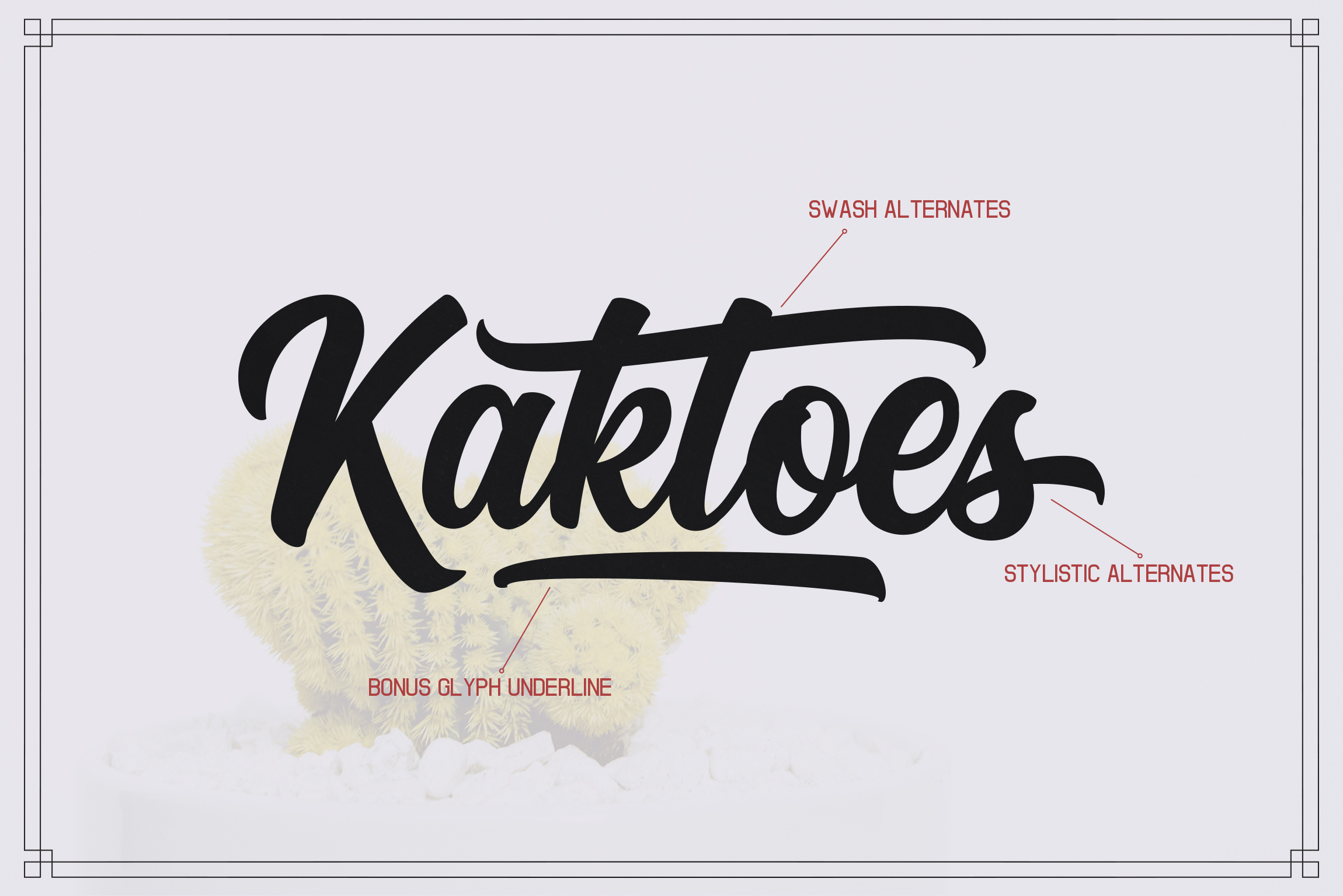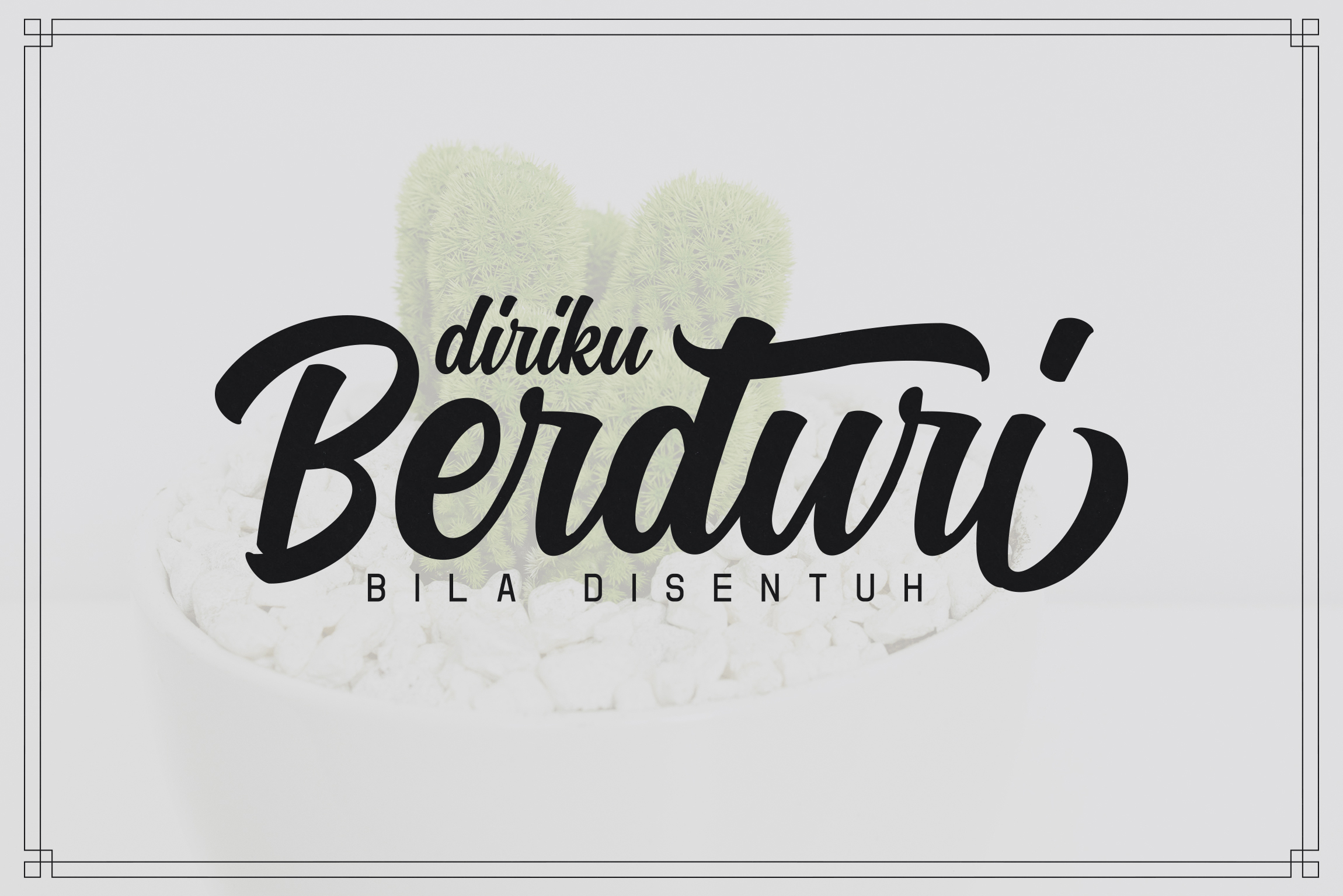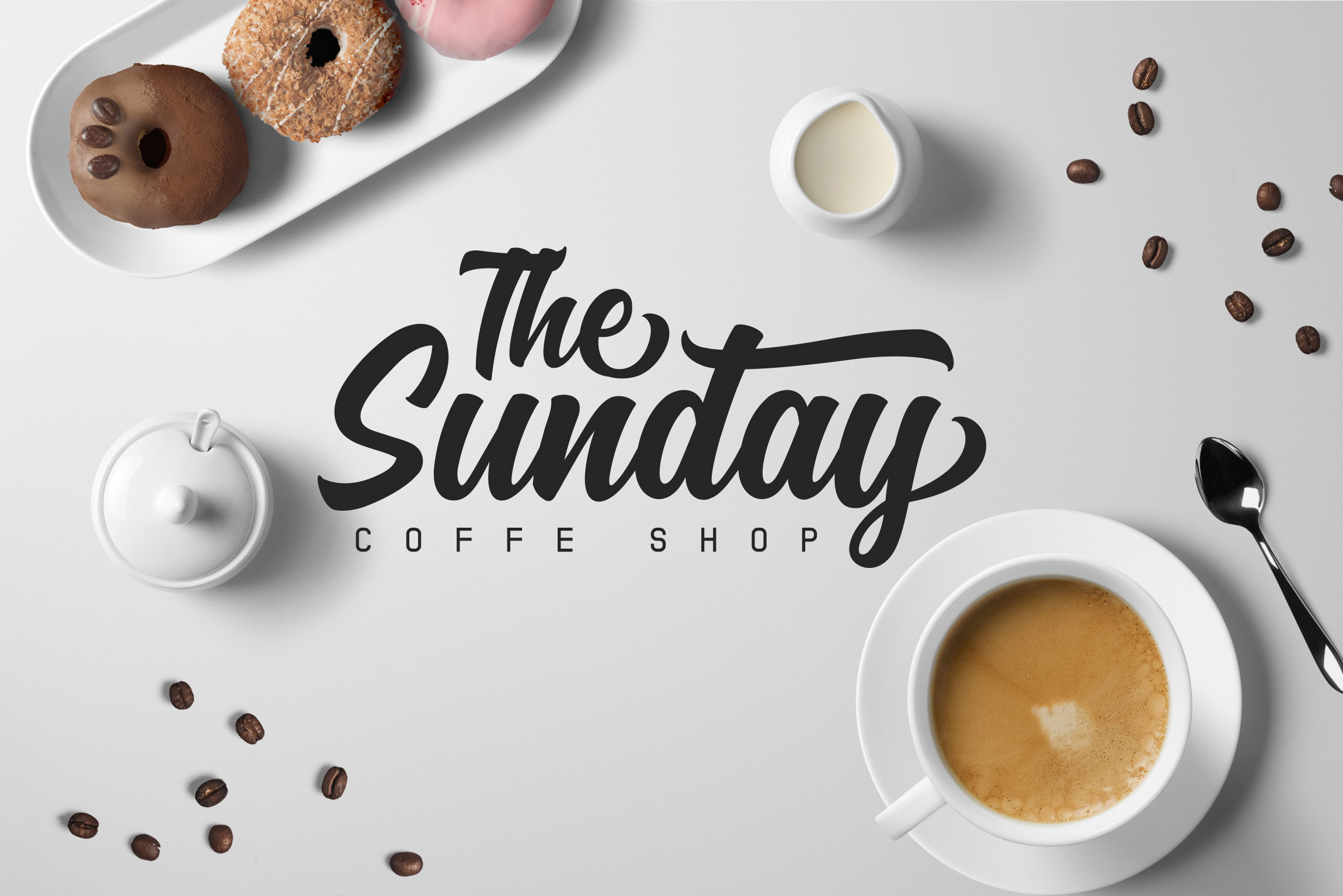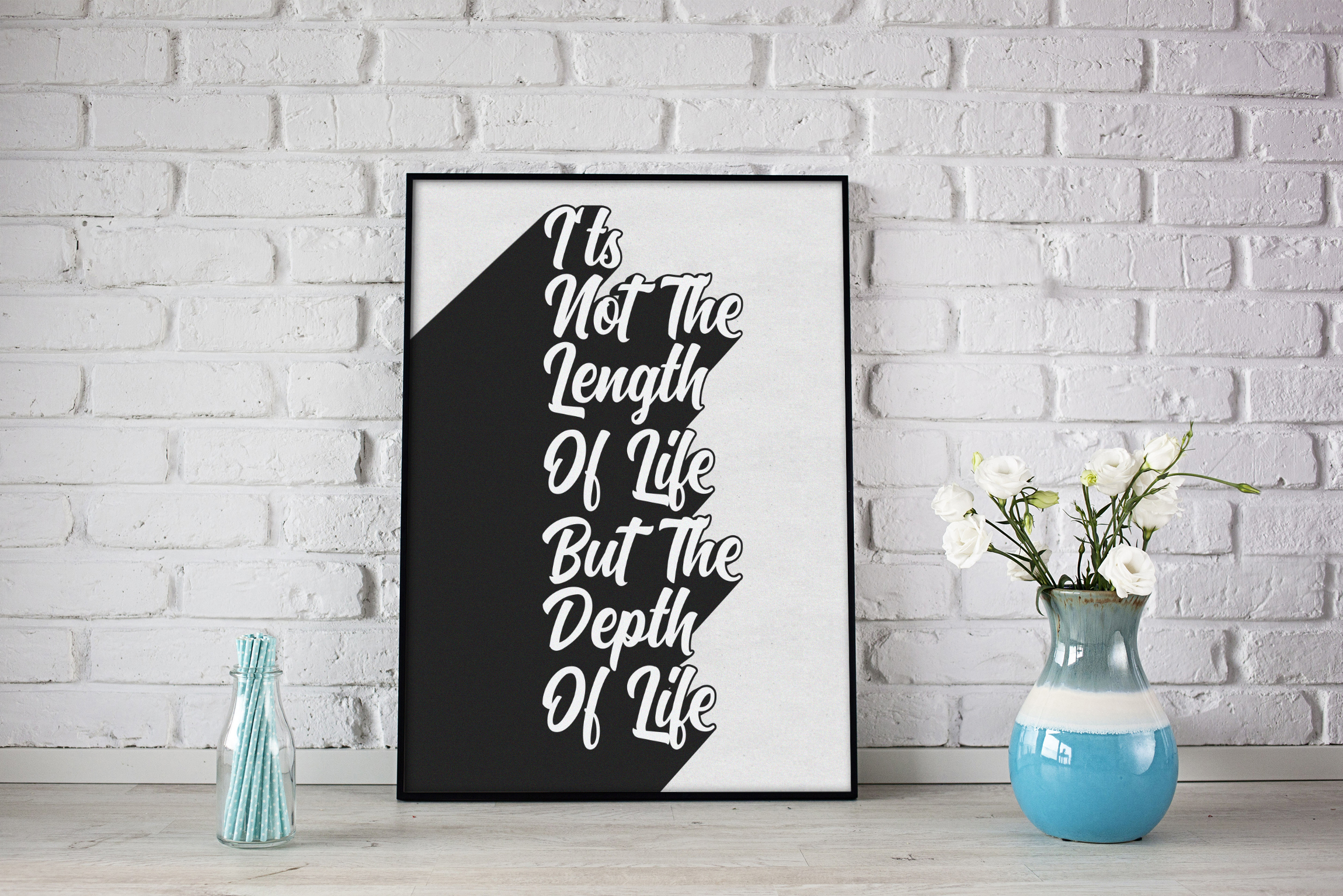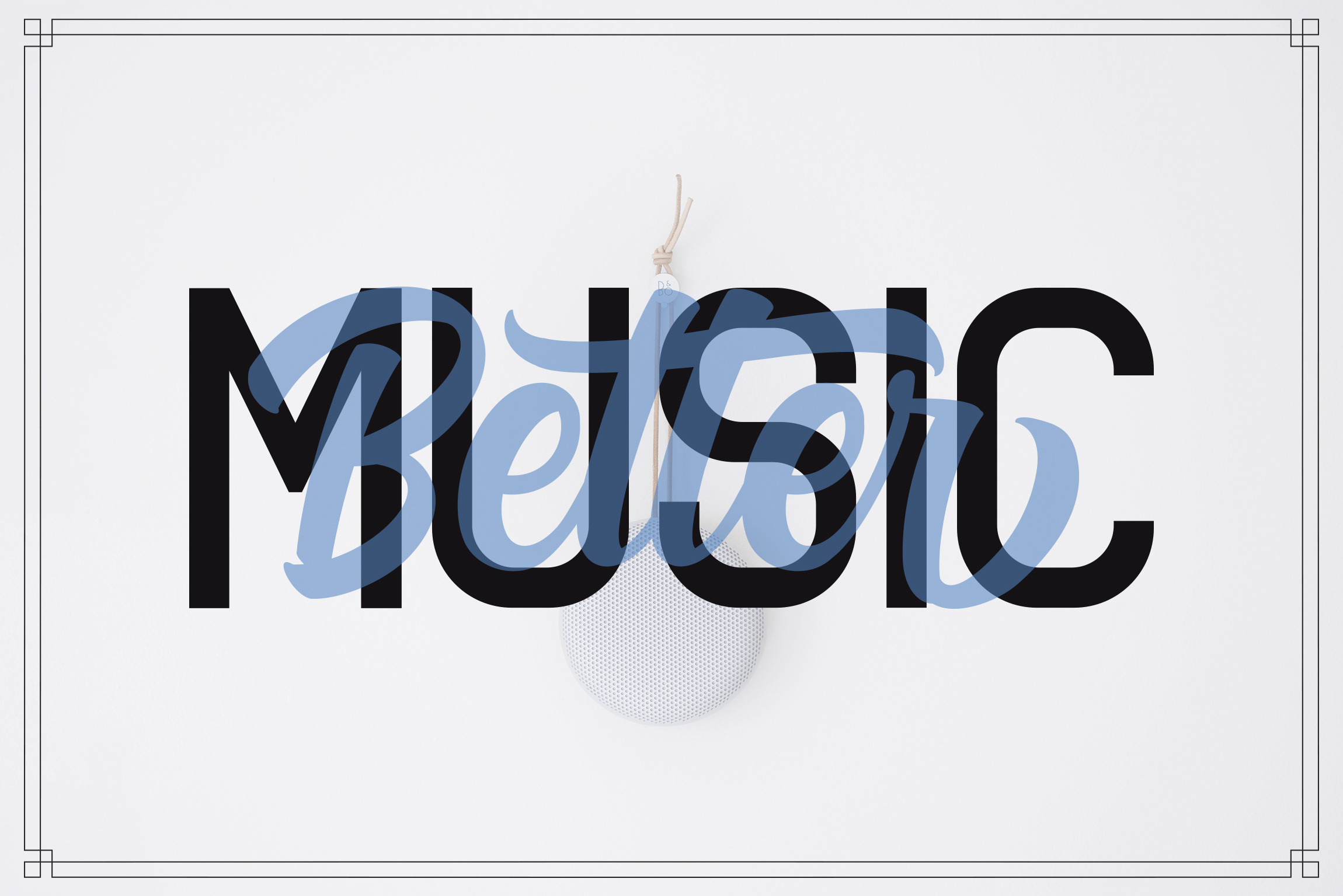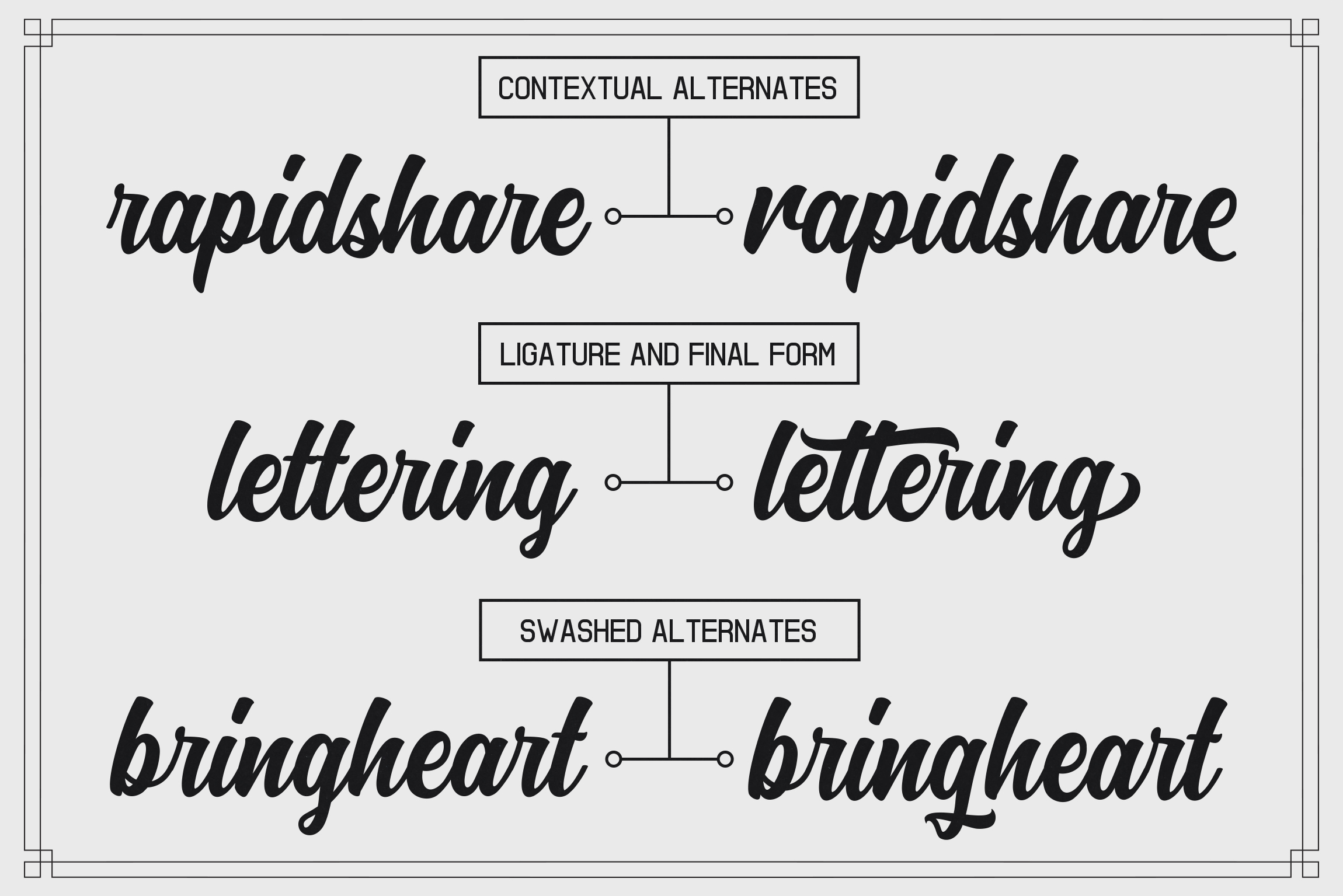
Introduction to Kaktoes Font
Kaktoes is a gorgeous, manual lettering font with both clean and rough design, as well as an underline set.
This font looks stunning in a wide range of styles and stands out in vintage inspired projects .
Key Features of Kaktoes Font
Why Choose Kaktoes Font?